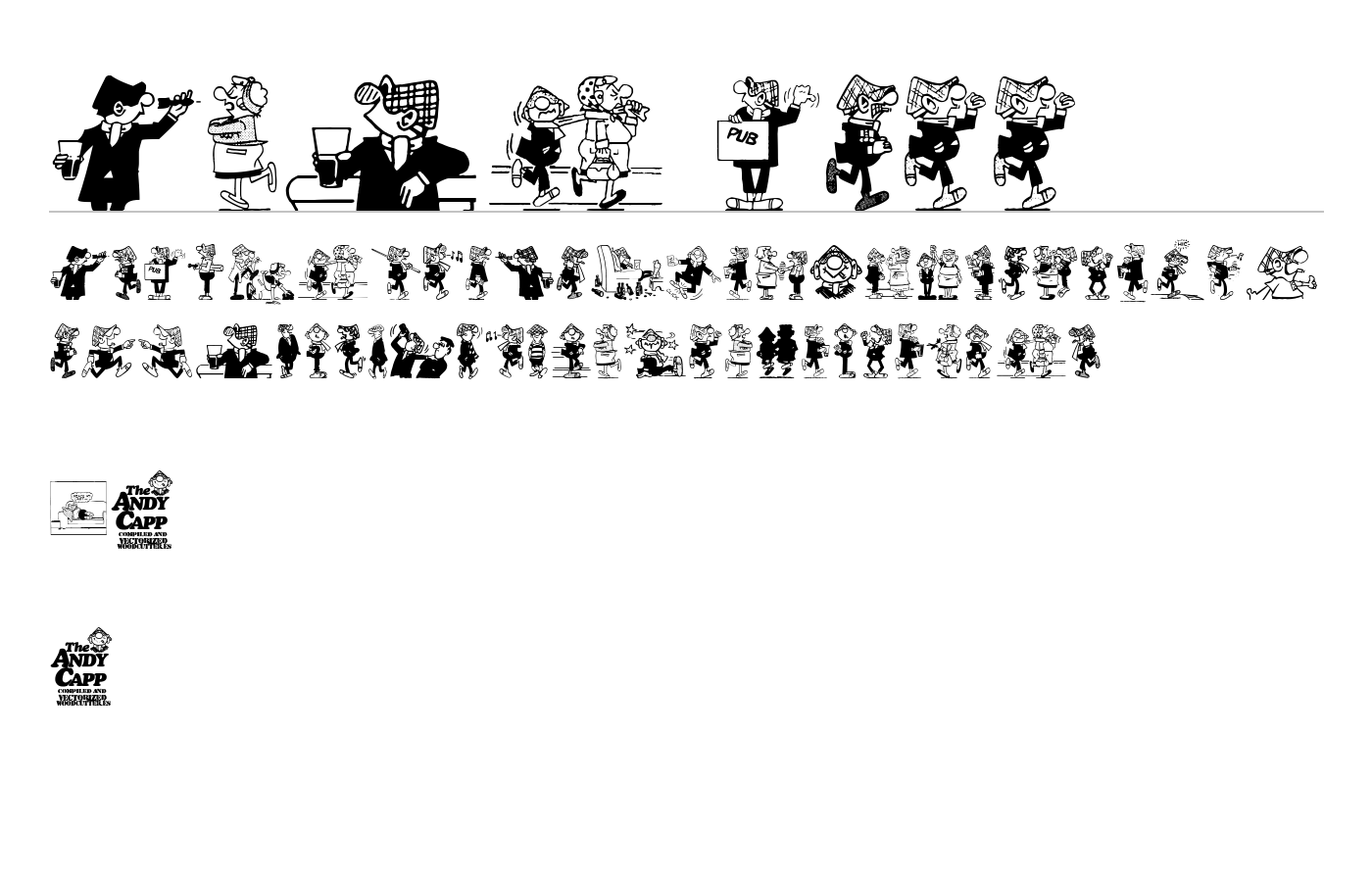
The Andy Capp font is a playful and distinctive illustrated typeface featuring charming cartoon characters in various poses instead of traditional letterforms. This unique design adds a fun, informal, and nostalgic vibe, making it perfect for creative projects, comics, and branding that seeks a quirky and lighthearted appeal. Its detailed character art brings a lively personality that is best suited for eye-catching headlines, logos, or themed designs rather than body text.
Andy Capp Font
About Andy Capp Font
| Font family | Andy Capp Font |
| Designer | Jordi Manero Pascual |